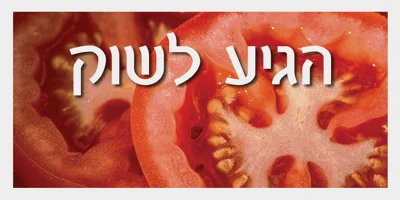
Emda MF Font
Emda MF Font is perfect for modern Hebrew publications, contemporary Israeli design projects, bilingual corporate communications, Hebrew language learning materials, progressive synagogue signage, Israeli tech company branding, cultural bridge-building initiatives, and forward-thinking Jewish community resources.
What makes Emda MF Font exciting is its contemporary Hebrew sophistication that bridges traditional Jewish heritage with modern Israeli design innovation through clean, progressive letterforms. This dynamic typeface features refined geometric construction with subtle cultural influences that create a perfect balance between ancient wisdom and contemporary functionality, making it ideal for projects requiring both Hebrew authenticity and modern international appeal in multicultural communications.
The Emda MF Font family includes multiple weights from light to bold, plus comprehensive Hebrew and Latin character support that provide versatile typographic solutions for bilingual design projects requiring both cultural sensitivity and contemporary design standards across international applications.
This progressive typeface delivers exceptional cultural versatility and modern Hebrew appeal, making Emda MF Font an invaluable resource for contemporary Jewish organizations and Israeli businesses. The font's modern character makes it perfect for institutions wanting to communicate cultural pride and progressive thinking in their Hebrew communications. Israeli startups and modern Jewish cultural centers particularly value its ability to convey innovation while maintaining connection to Hebrew traditions in their materials. The expertly designed letterforms ensure optimal readability while establishing contemporary brand personality across all applications from tech company websites to modern synagogue materials. Whether you're developing branding for Israeli innovation hubs or creating educational content for progressive Jewish communities, this font provides the perfect combination of cultural authenticity and modern design appeal. Creative professionals consistently choose this typeface for projects requiring that ideal synthesis of Hebrew heritage and contemporary global communication, making it essential for modern Jewish communications that celebrate both traditional values and innovative thinking.